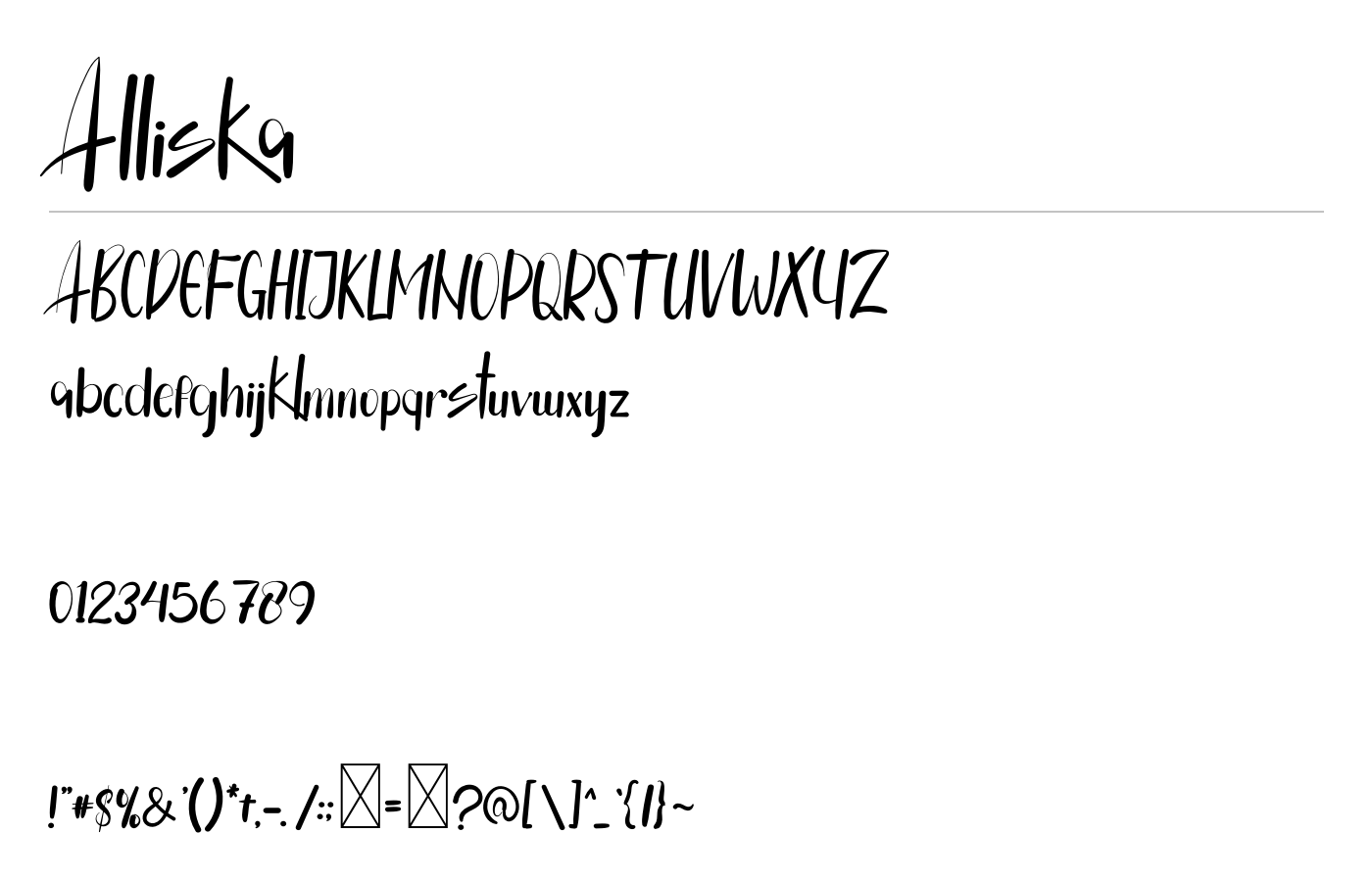
Alliska is a lively, hand-drawn script font with a slender, tall appearance and playful irregularities that give it a personal, informal charm. Its thin strokes and dynamic letterforms create a whimsical yet elegant feel, making it ideal for creative branding, invitations, and casual editorial design where a friendly, unique touch is desired. This font works well in headlines and decorative uses where personality and a handwritten vibe are important.
Alliska Font
About Alliska Font